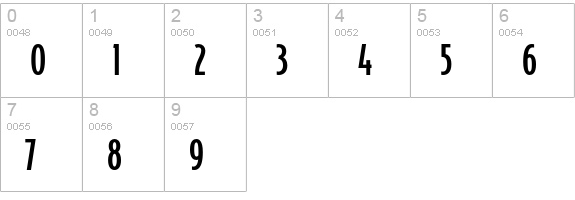
BodegaSans-Medium Font Details
BodegaSans-Medium is a balanced, medium-weight variant in the BodegaSans typeface family \xE2\x80\x94 well suited to sub-headlines, navigation, and balanced editorial work.
BodegaSans-Medium is a versatile and modern font that strikes the perfect balance between professionalism and creativity. Its clean lines and rounded edges give it a friendly and approachable look, making it suitable for a wide range of design projects. Whether you're working on branding materials, websites, or print designs, BodegaSans-Medium is sure to make a strong visual impact. One of the best things about BodegaSans-Medium is that it is available for free download at FontsMarket.com. This means that you can easily access this high-quality font without breaking the bank. With its timeless appeal and excellent legibility, BodegaSans-Medium is a must-have addition to any designer's toolkit. So why wait? Head over to FontsMarket.com today and grab your free copy of BodegaSans-Medium to take your designs to the next level.